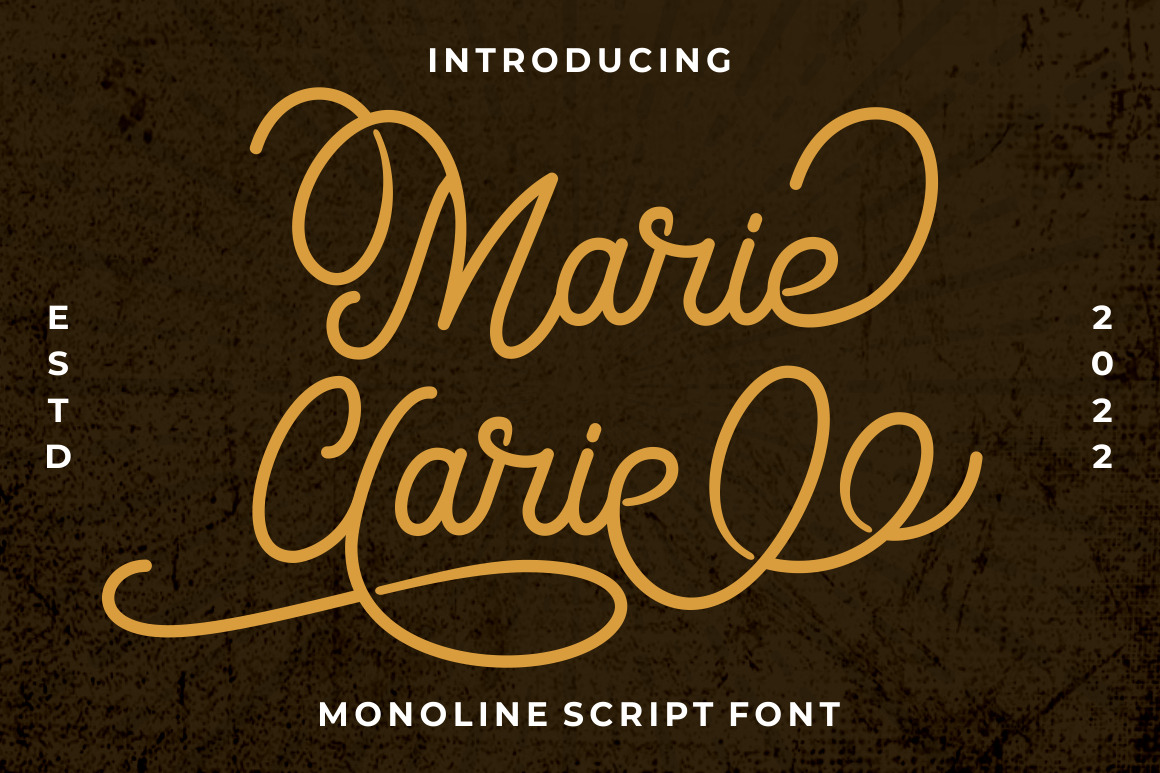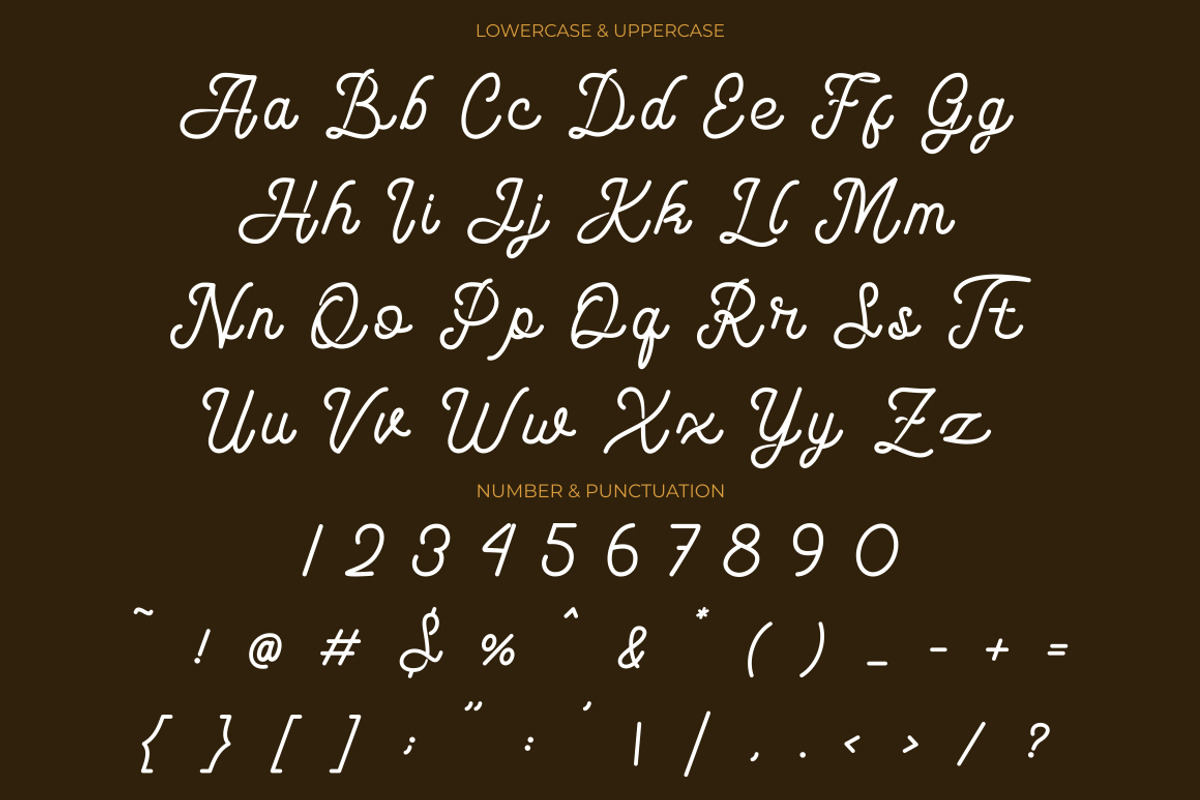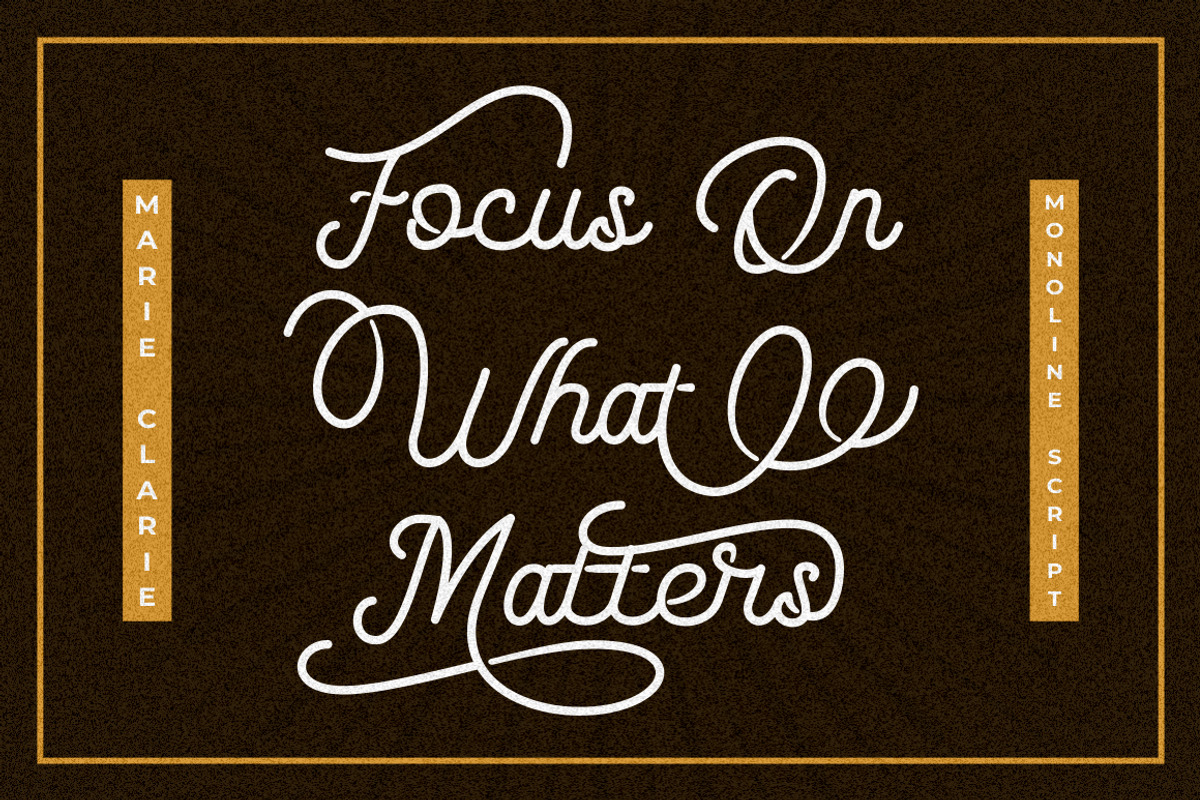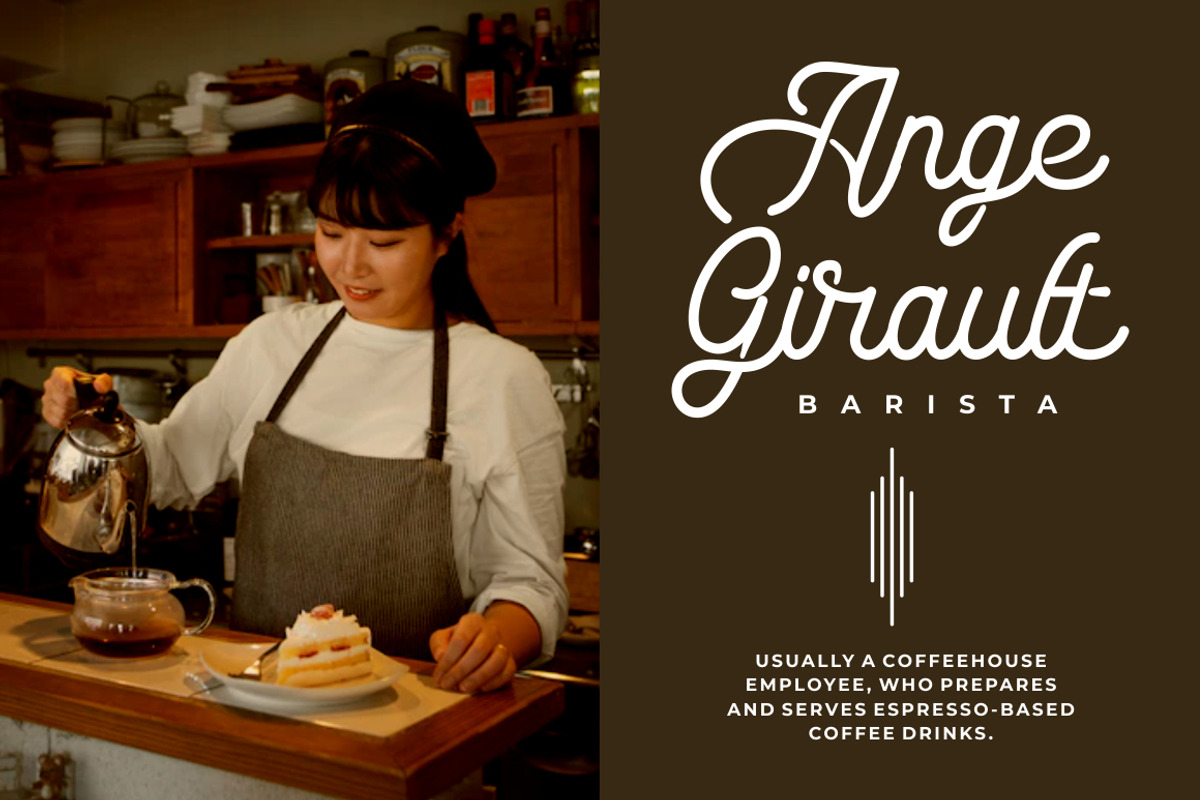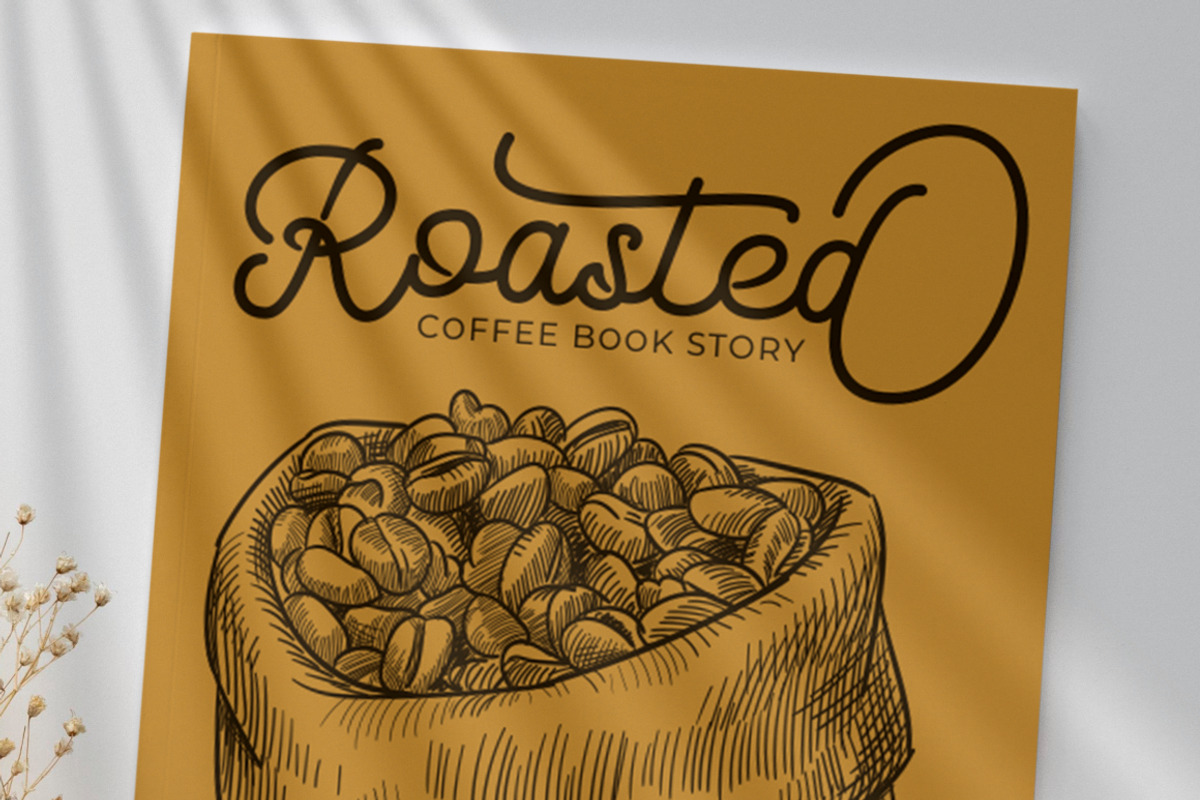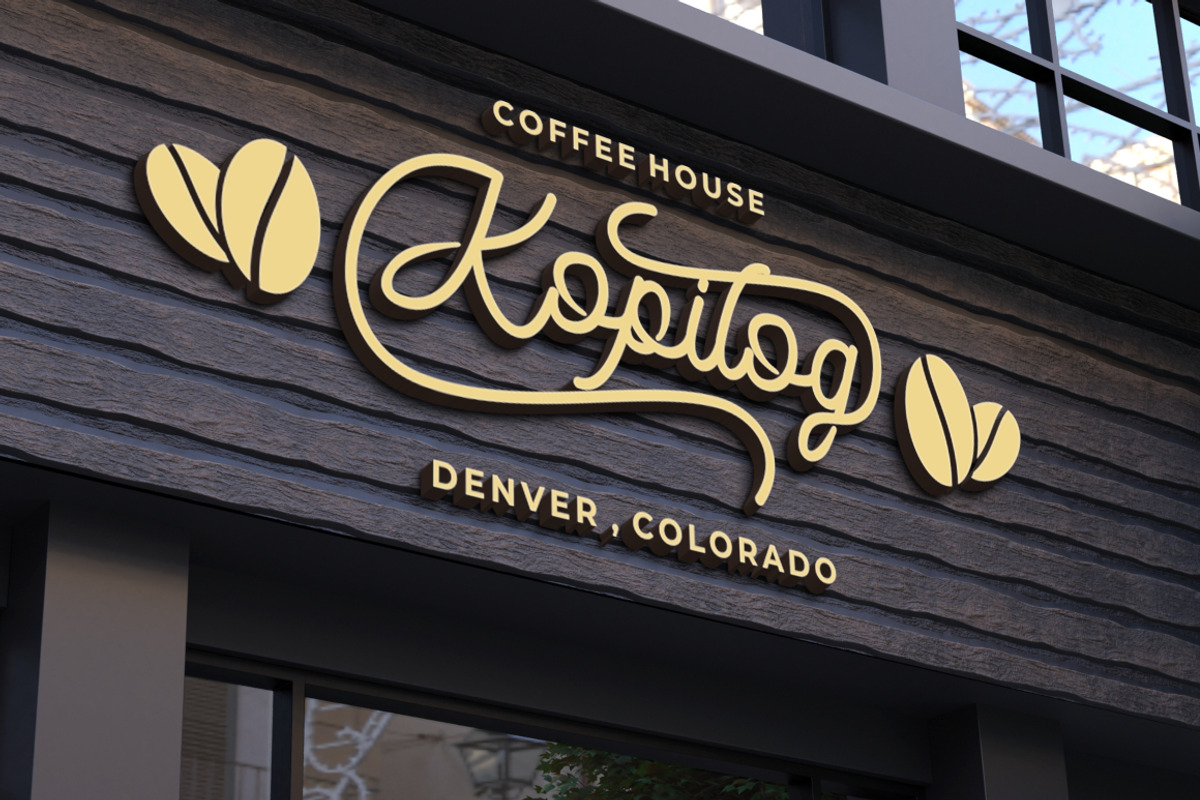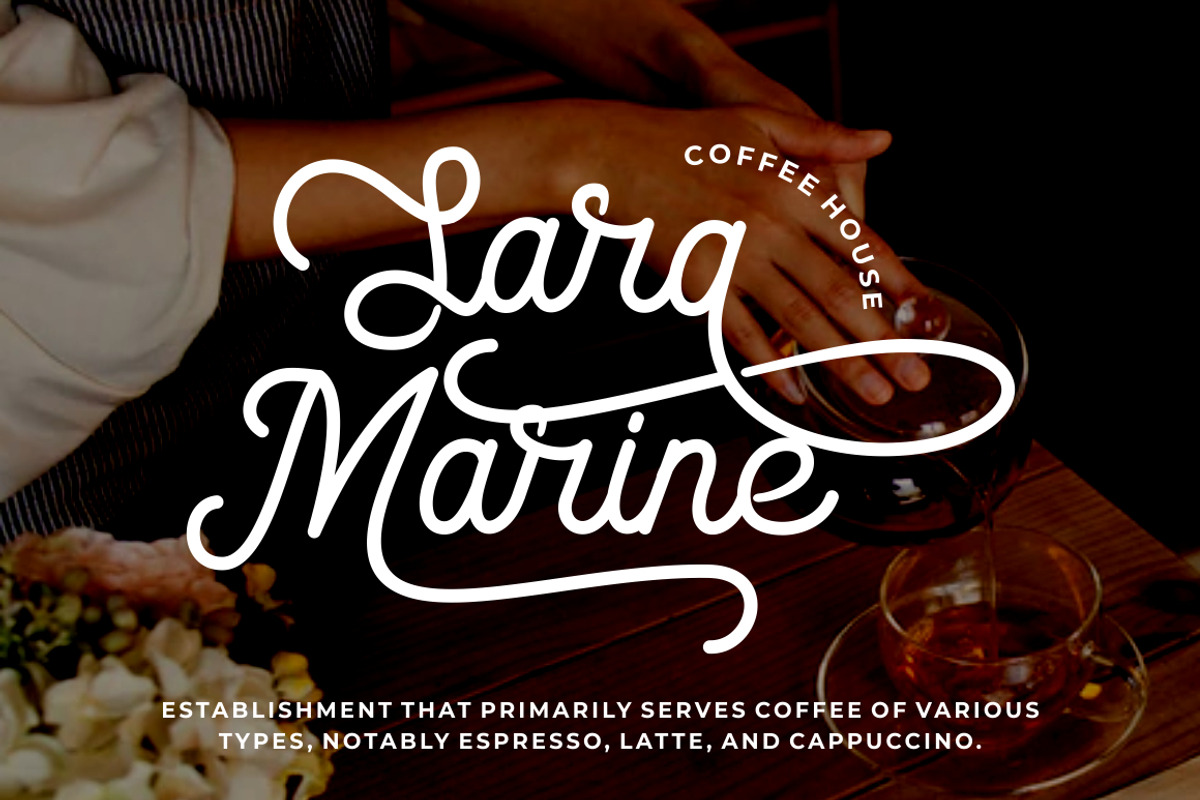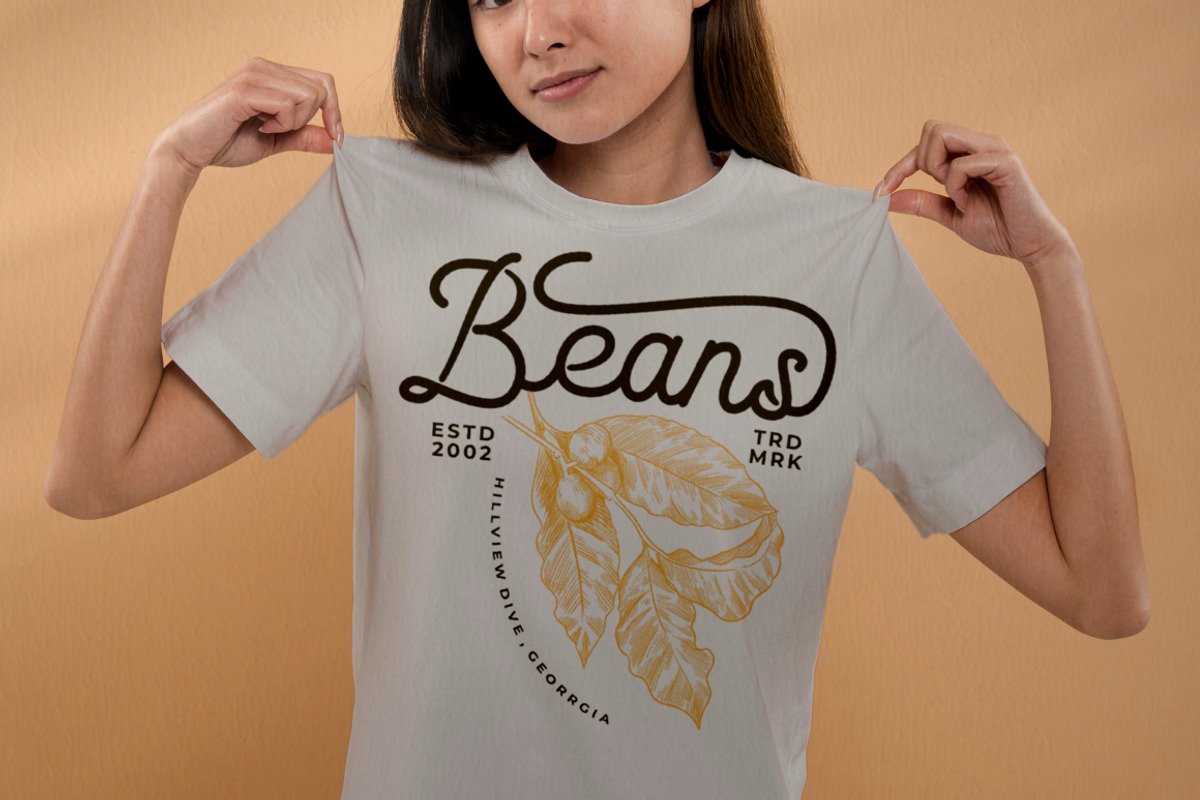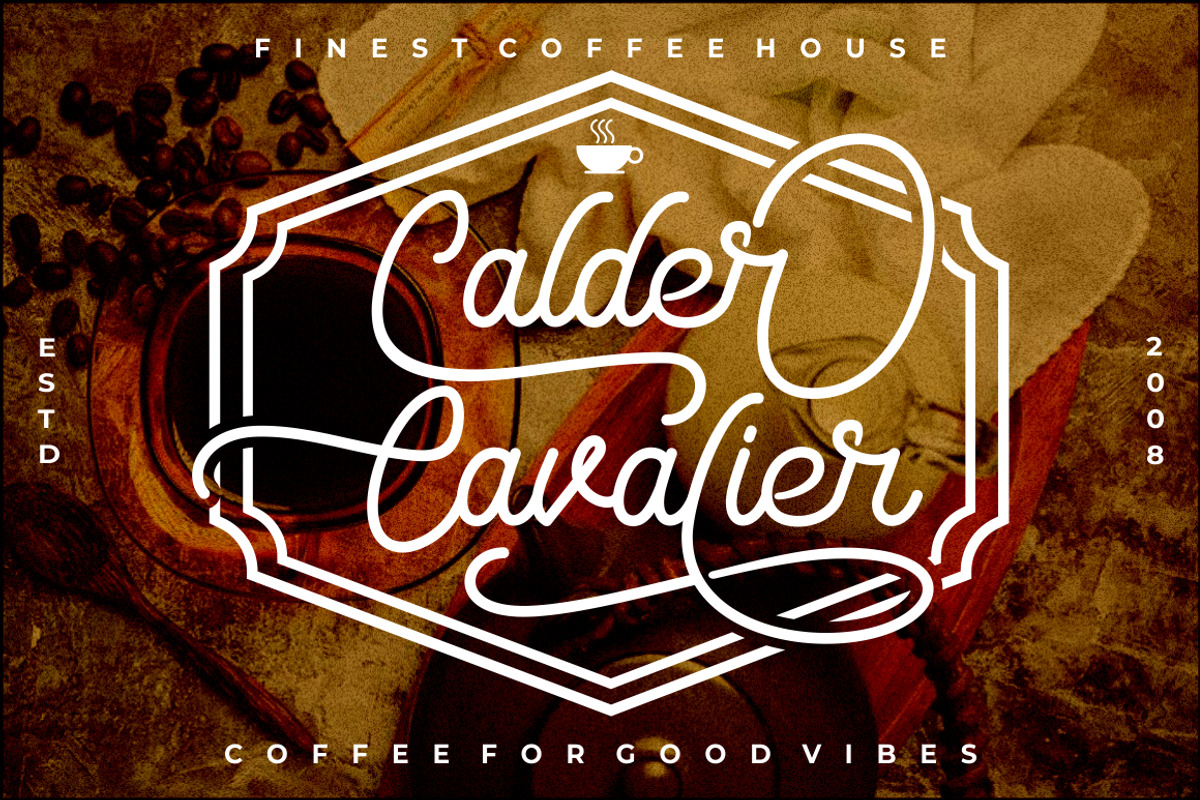
Marie Clarie - Monoline Script Font
Marie Clarie - Monoline Script Font is a stunning font with a script style characterized by thin monoline strokes. Its vintage retro charm and classic script lettering make it a perfect choice for various design applications. Whether you're creating logos, lettering, branding materials, coffee-related designs, food and beverage branding, invitations, or cards, this font will add a touch of elegance and sophistication to your projects.
The monoline script style of Marie Clarie features thin and consistent strokes, giving it a sleek and modern look. Its vintage retro undertones bring a sense of nostalgia and timelessness to your designs. The classic script lettering adds an elegant and sophisticated touch, making it ideal for creating a refined and stylish visual impression.
Whether you're designing a logo for a boutique coffee shop, creating elegant lettering for a special invitation, or crafting a vintage-inspired food and beverage brand, Marie Clarie - Monoline Script Font offers versatility and charm that will elevate your designs to the next level.